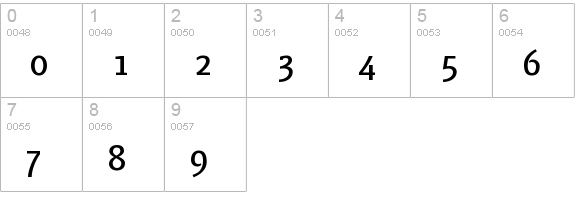
PFMuse-Regular is the standard, neutral variant in the PFMuse typeface family \xE2\x80\x94 well suited to general body text, paragraphs, and standard typographic work.
PFMuse-Regular is a versatile and modern font that strikes the perfect balance between elegance and readability. With its clean lines and rounded edges, this sans-serif typeface is ideal for a wide range of design projects, from branding to editorial design. The PFMuse-Regular font exudes a sense of sophistication and style while maintaining a friendly and approachable look. What's even better is that PFMuse-Regular is available for free download at FontsMarket.com. This means you can easily access this high-quality font and use it in your projects without any cost. Whether you're a professional designer or a hobbyist looking to elevate your designs, PFMuse-Regular is a fantastic addition to your font collection. Don't miss out on this opportunity to enhance your creations with this beautiful and free typeface.